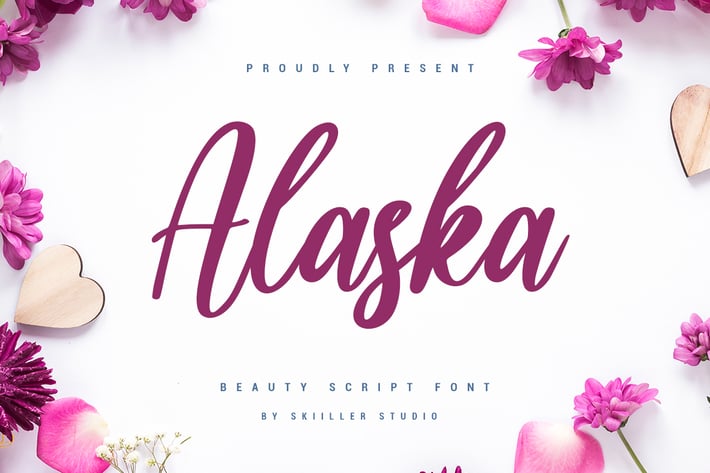
Alaska - Beauty Script Font
Alaska is a beautiful font script with a modern and cool style designed with many features encoded PUA and more than 200+ GLYPHS, suitable for promotion , wedding and more